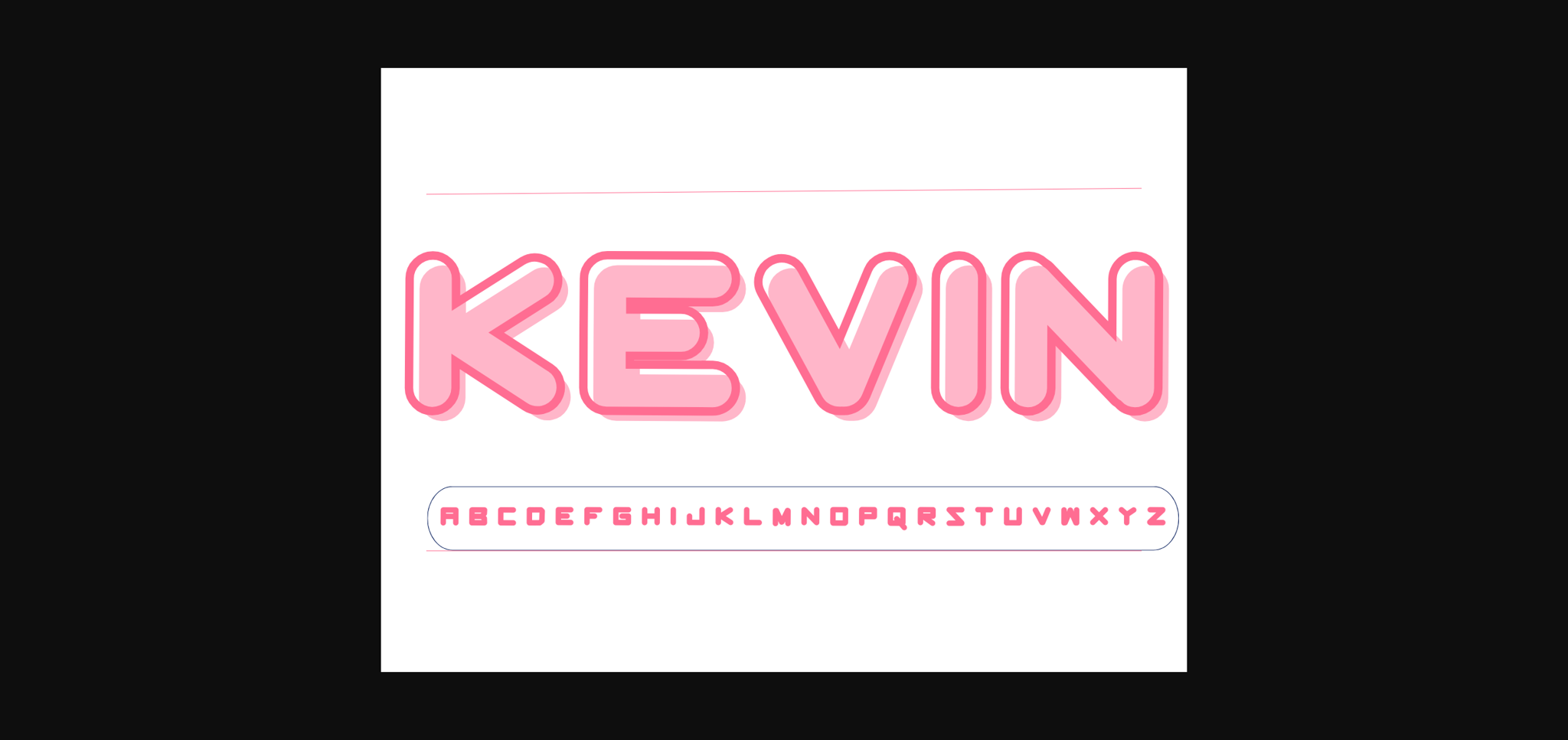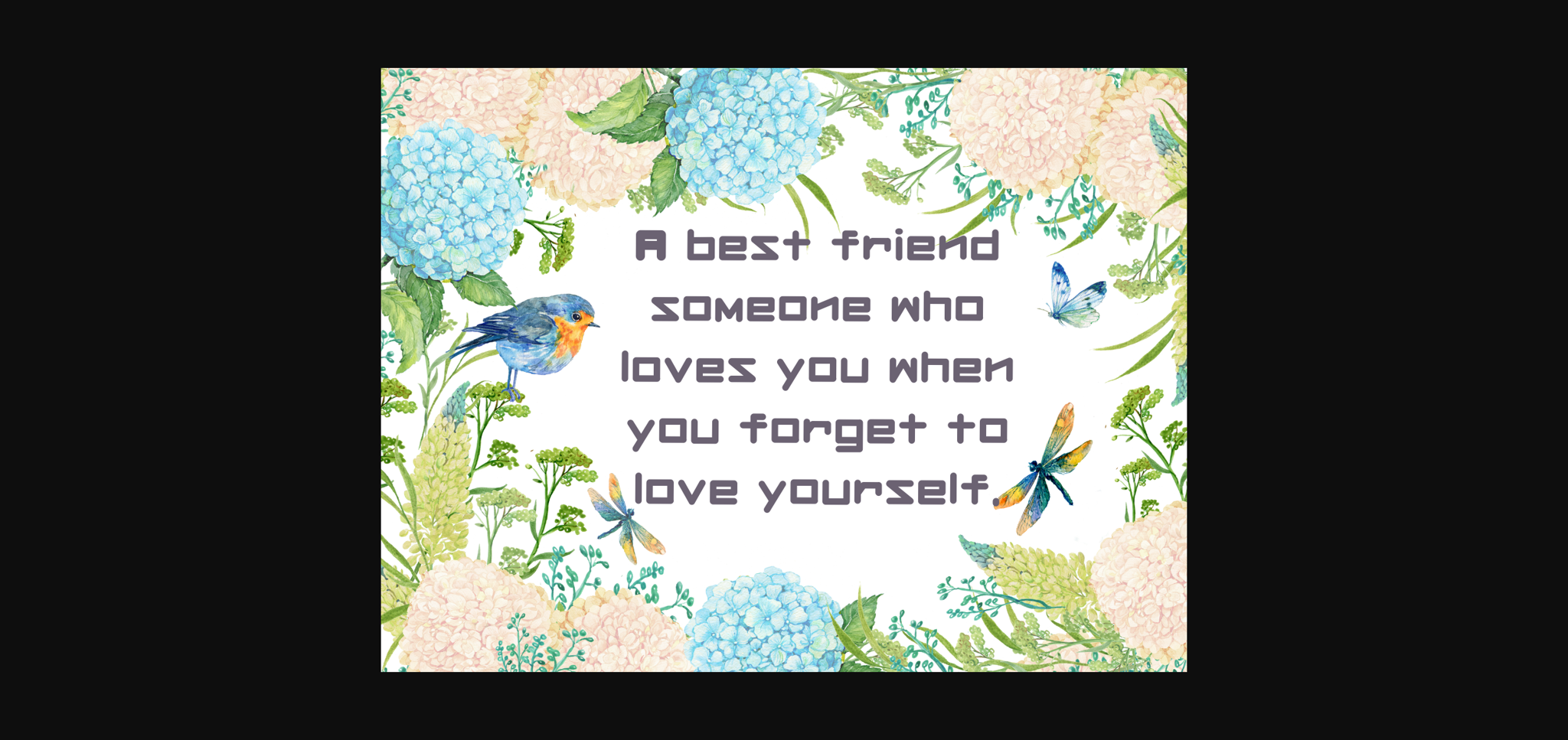
About Kevin Font
Kevin has its own identity. It can be used to add distinctiveness to your work whether it is used in a letter, greeting cards, wedding cards, quotes, good notes, planners, handwritten notes, logos, teachers, and more to give your letters a unique look. With this designed font your work will be accentuated by the novelty of the font.